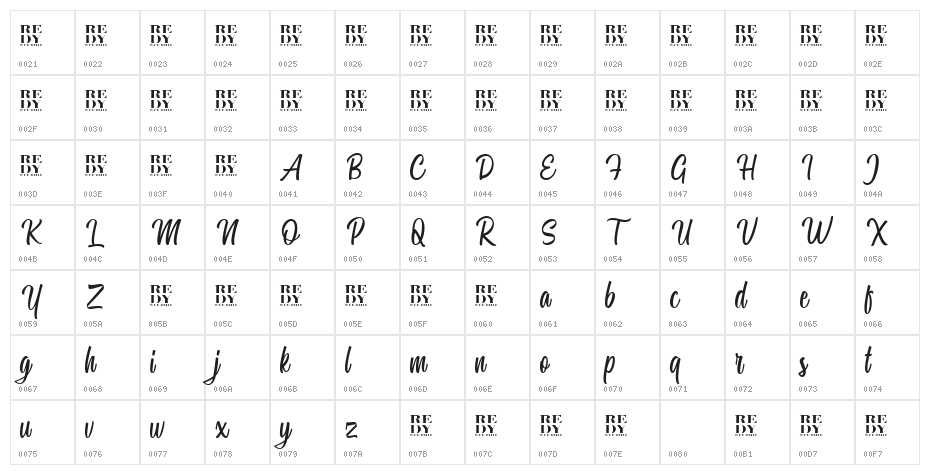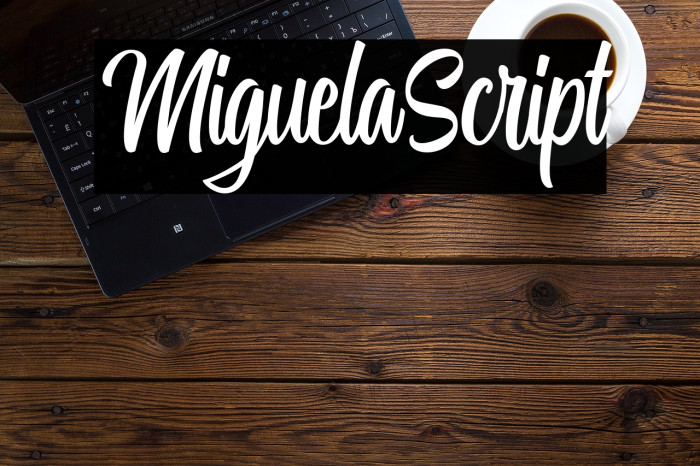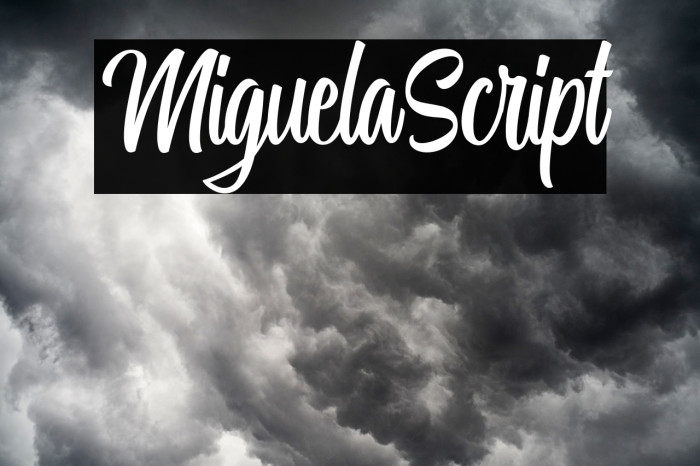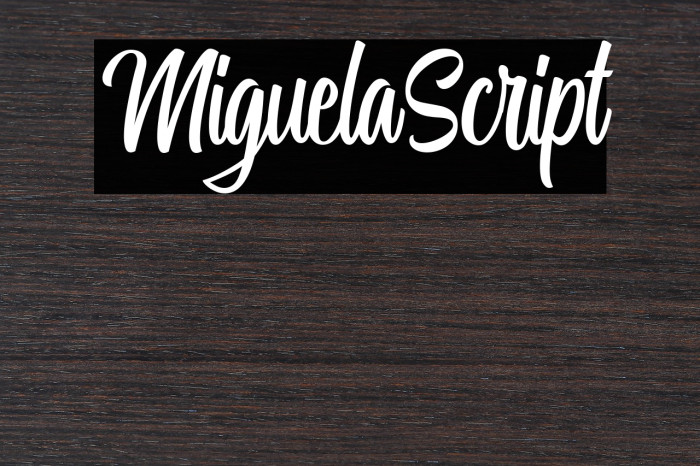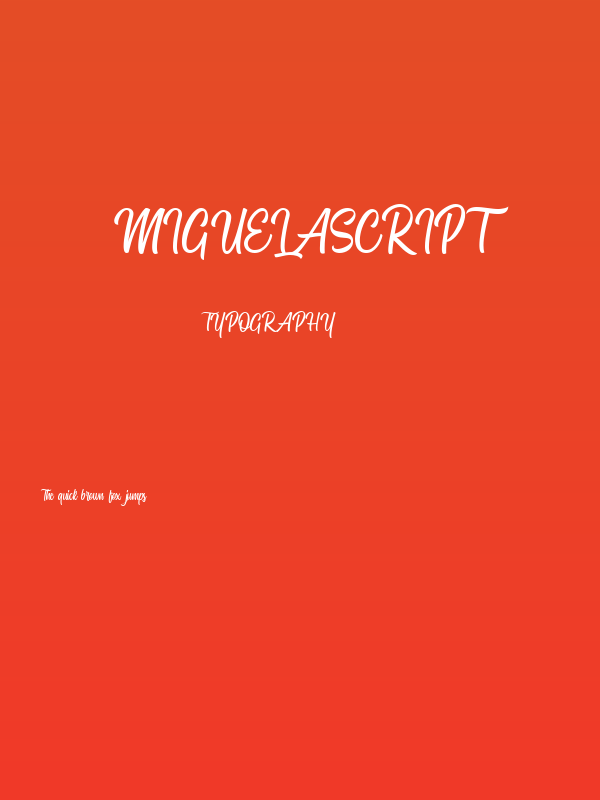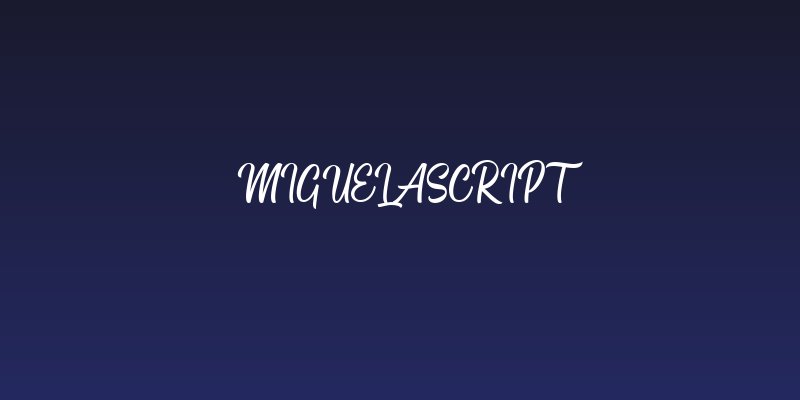
MiguelaScript Font
MiguelaScript Description
This script font exudes elegance and fluidity, characterized by its smooth, flowing strokes and cursive style. The uppercase letters are bold and slightly slanted, giving a dynamic and lively appearance. The lowercase letters maintain a consistent flow, with some characters featuring loops and swashes that enhance the script's graceful nature. The font's overall design is cohesive, with a harmonious balance between thick and thin strokes, providing a moderate contrast that adds to its readability. This font is versatile, suitable for a variety of creative projects that require a touch of sophistication and charm.
| Proposed Projects | Ideal for wedding invitations, greeting cards, branding, and elegant logo designs. |